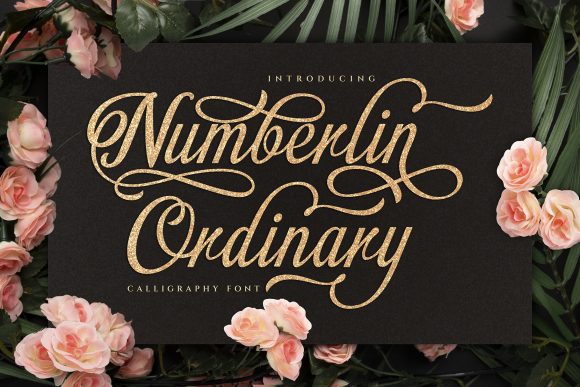
Introducing the Numberlin Ordinary Font - the Best Font for Fashion Brands, created by the talented team at Graphicxell. This script font is perfect for fashion lovers who want to add a touch of elegance and sophistication to their designs.
With its delicate, flowing strokes and well-balanced characters, Numberlin Ordinary Font is a great choice for any project. Whether you are designing a logo for a luxury brand, creating invitations for a high-end event, or simply adding some flair to your social media posts, this font will take your designs to the next level.
One of the best things about Numberlin Ordinary Font is its versatility. It matches a wide range of designs and can be used in various contexts. Its beauty and elegance make it suitable for any creative ideas you may have, and it brings them to life.
When you use Numberlin Ordinary Font in your designs, you can be sure that you are creating something unique and eye-catching. Its delicate and elegant strokes evoke emotions of sophistication, glamour, and luxury. It is the perfect font to showcase your creativity and leave a lasting impression on your audience.
In summary, if you're looking for the perfect script font to elevate your fashion brand or add a touch of elegance to your designs, Numberlin Ordinary Font is the answer. Try it today and see how it transforms your creative ideas into a work of art!